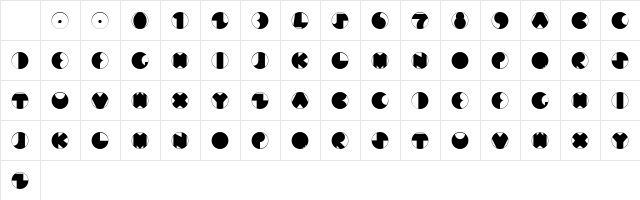
Mun is a composed and adaptable typeface that performs quietly and consistently across a wide range of design contexts.
Who designed the Mun Circled font?